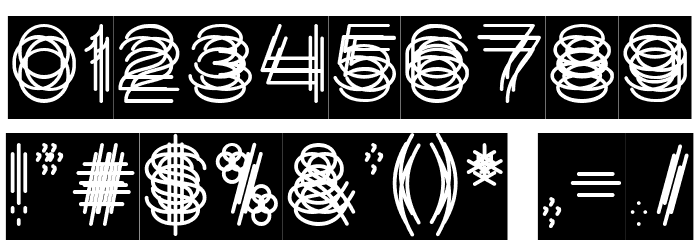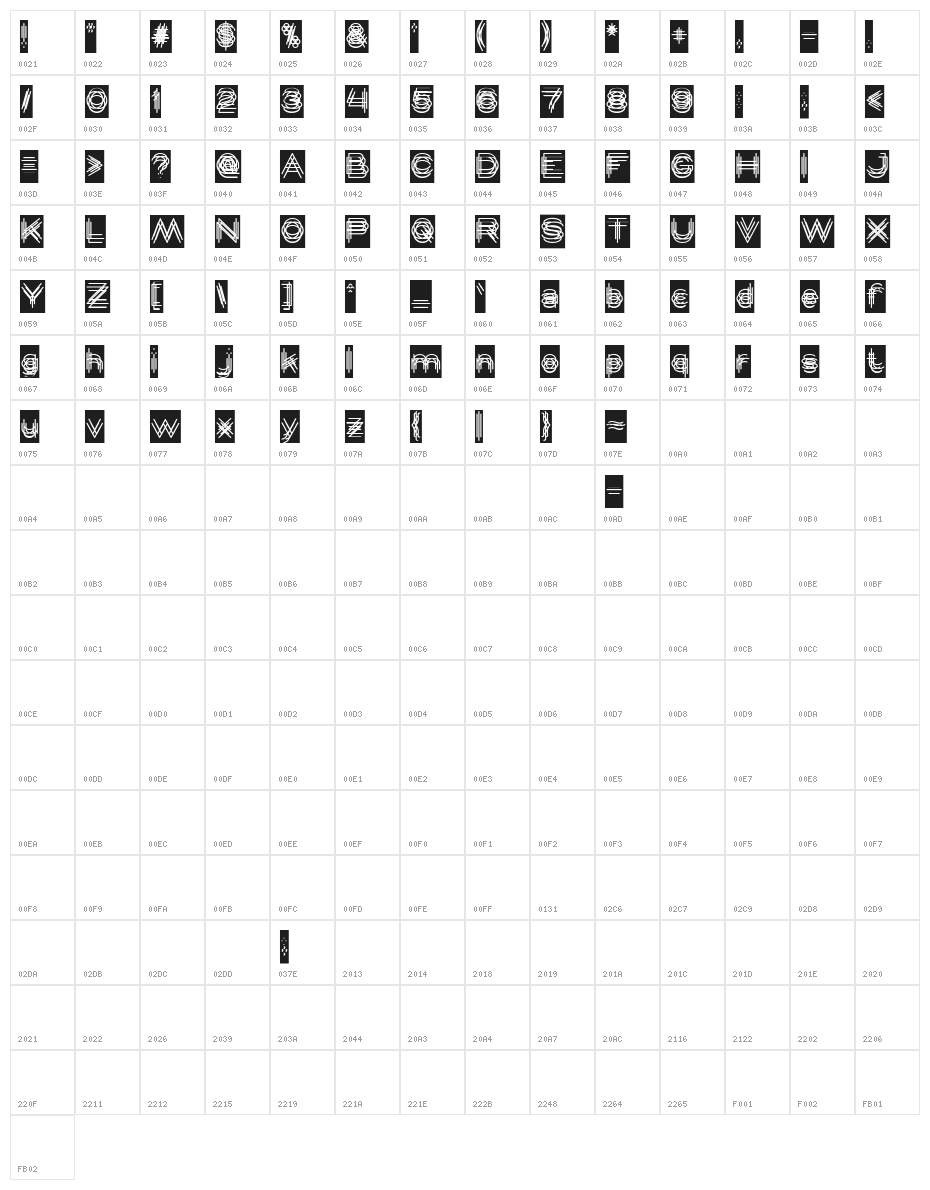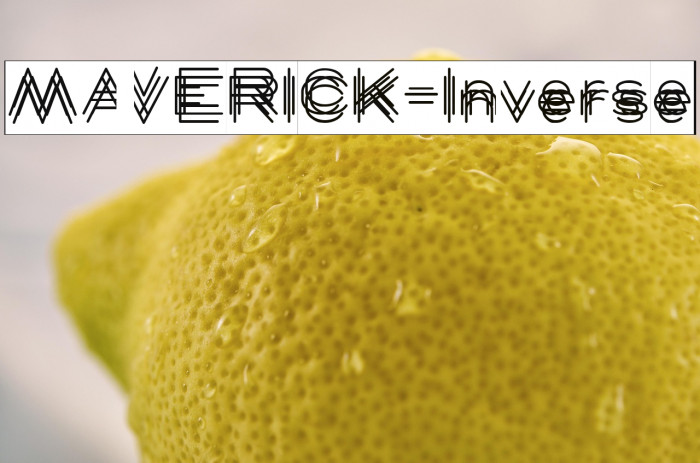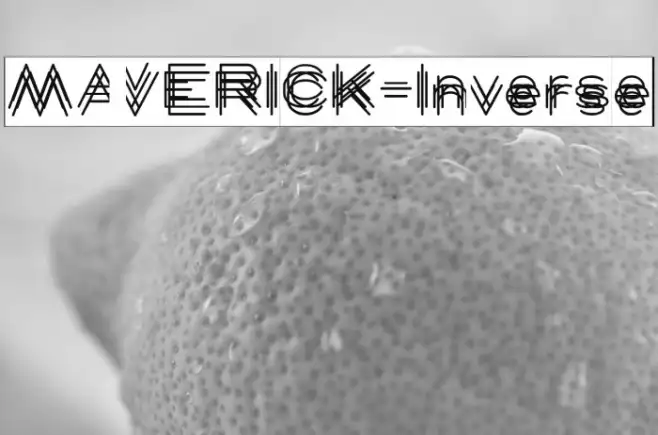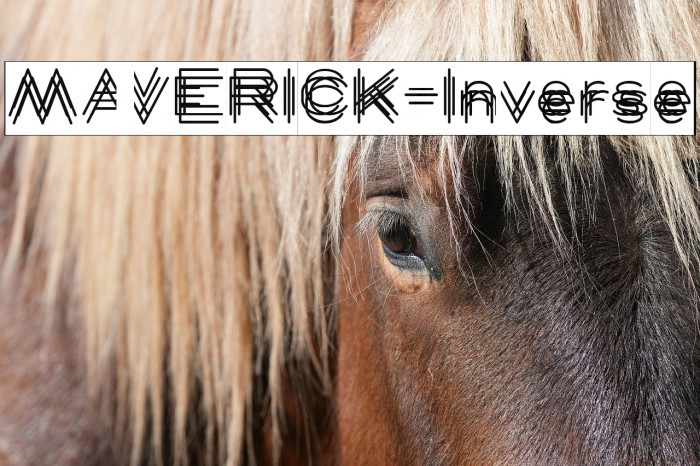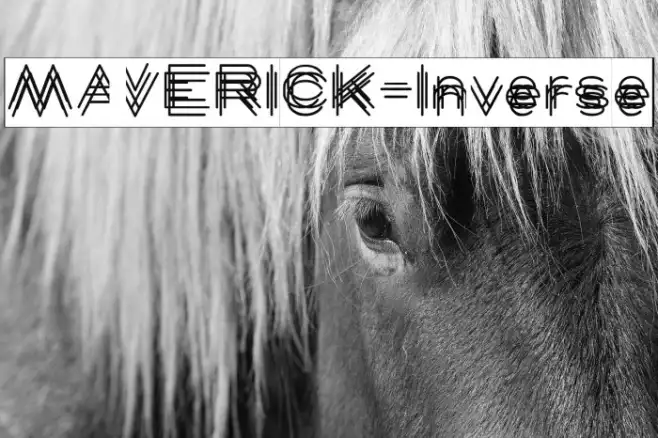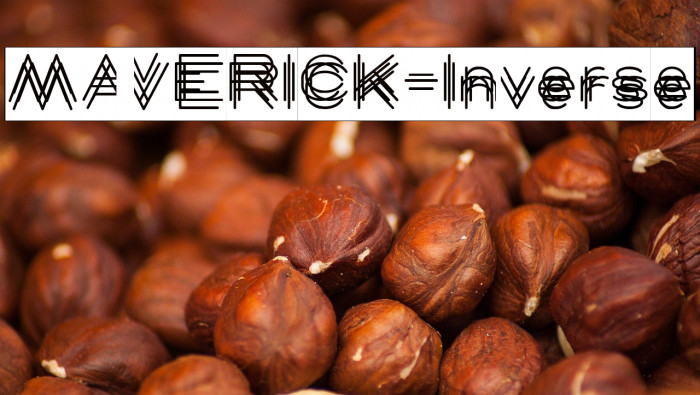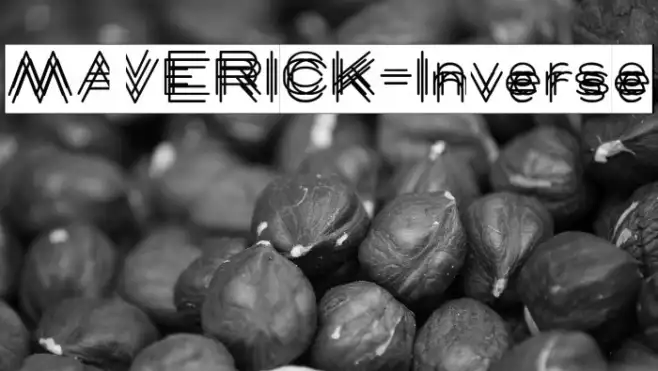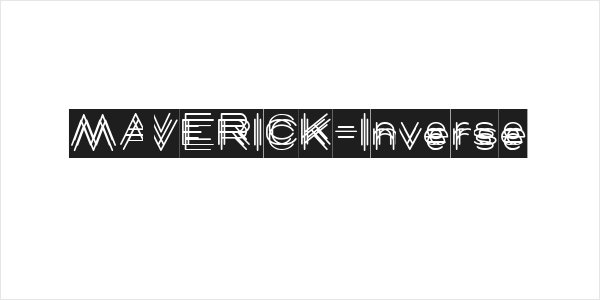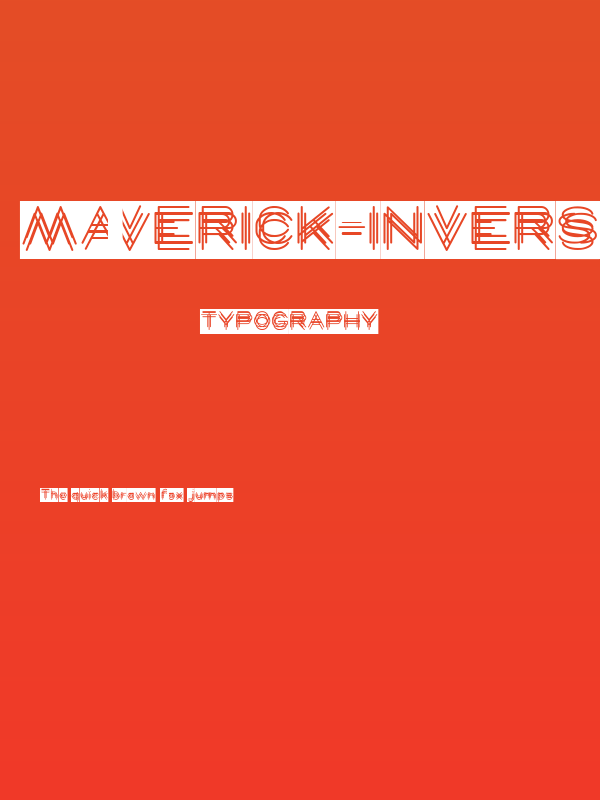
MAVERICK-Inverse Font
MAVERICK-Inverse Description
This font features a unique, layered design with multiple overlapping lines creating a sense of depth and complexity. The characters are bold and striking, with a geometric structure that gives them a modern and futuristic appearance. The uppercase and lowercase letters maintain a consistent style, while the numerals and special characters are equally dynamic and visually engaging. The font's intricate design makes it ideal for projects that require a standout, artistic touch.
| Proposed Projects | Ideal for branding, posters, album covers, and any design needing a bold, artistic flair. |